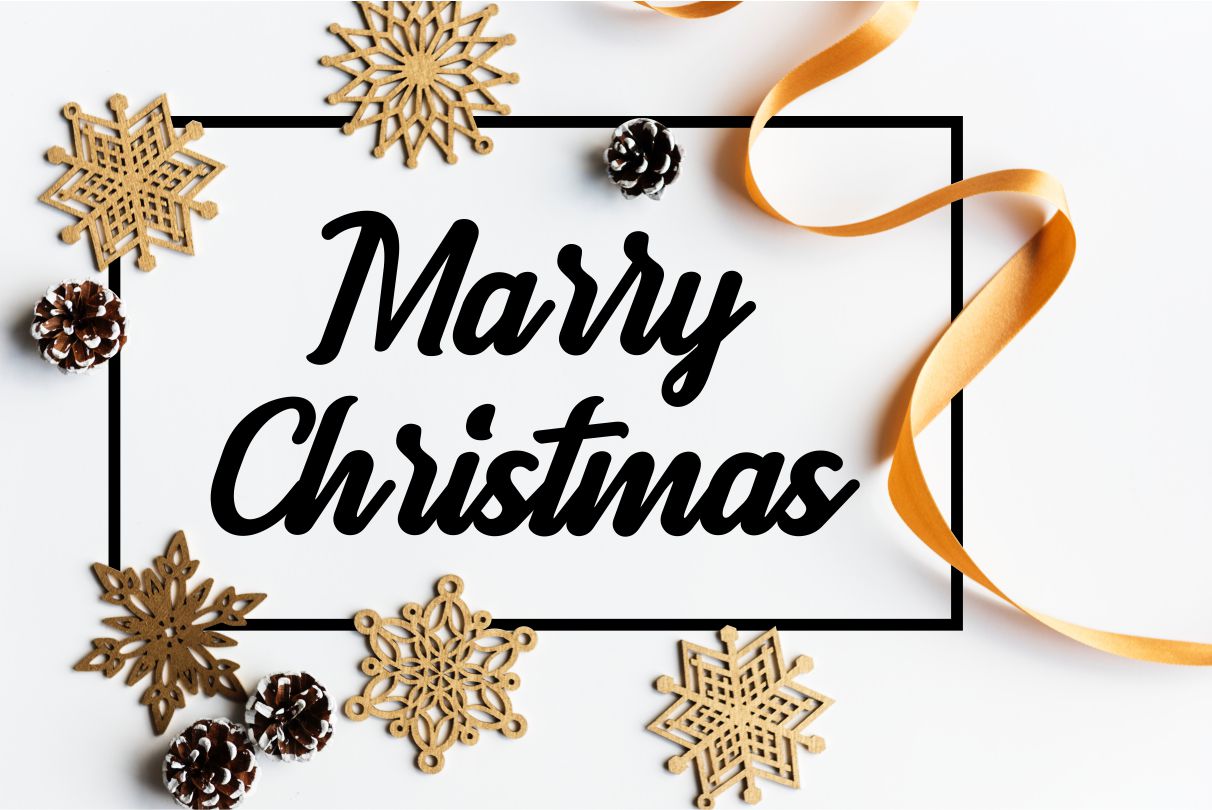
Alvenda Font
Alvenda Font is a handcrafted script, that gives a feel of girly font type. An Original typeface that suitable for any graphic designs such as branding materials, t-shirt, print, business cards, logo, poster, t-shirt, photography, quotes .etc
This font support for some multilingual. Handcrafted Script that contains uppercase A-Z and lowercase a-z, alternate character, numbers 0-9, and some punctuation.